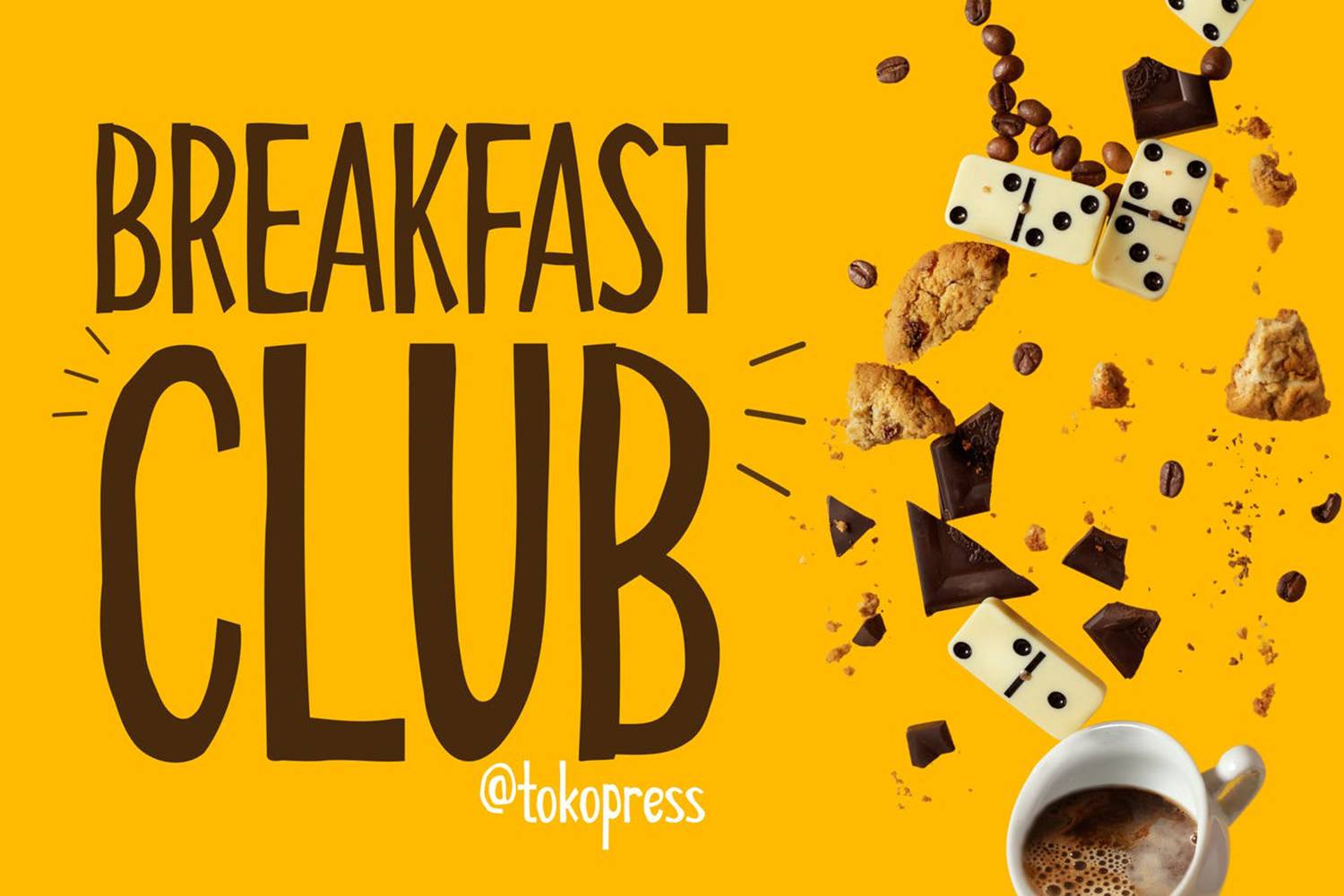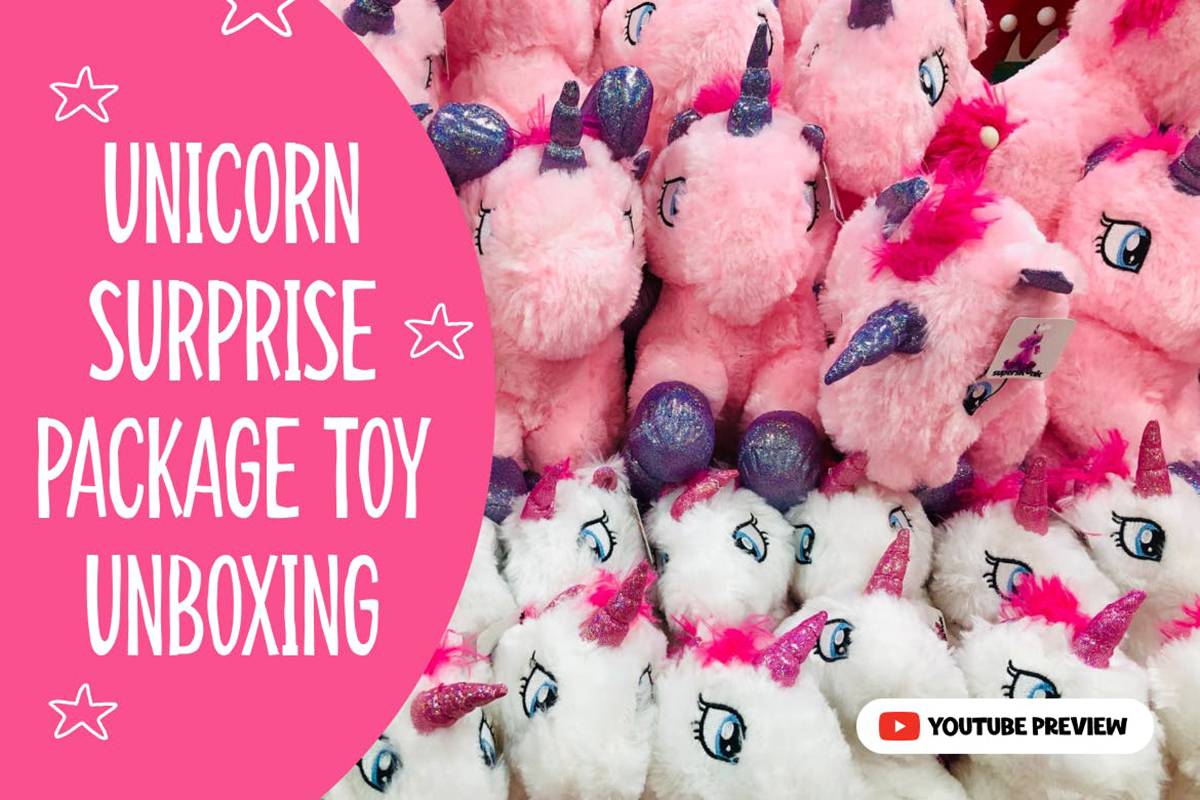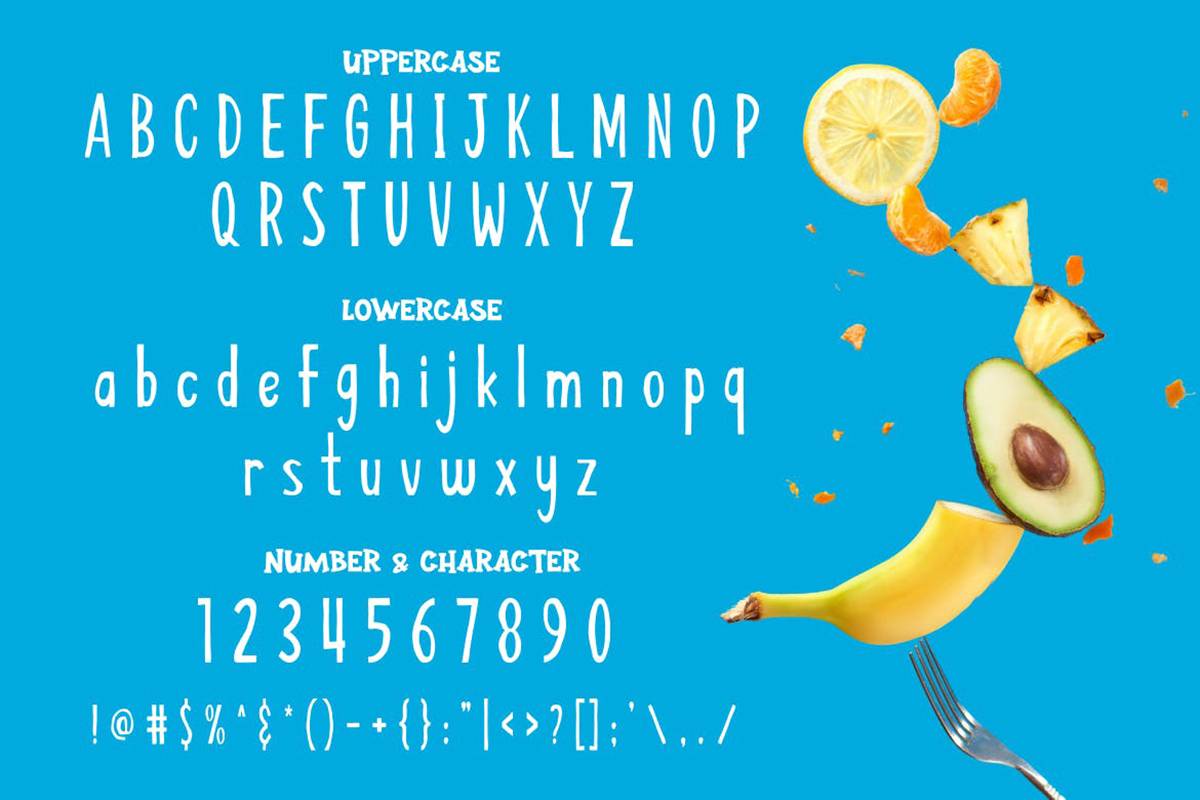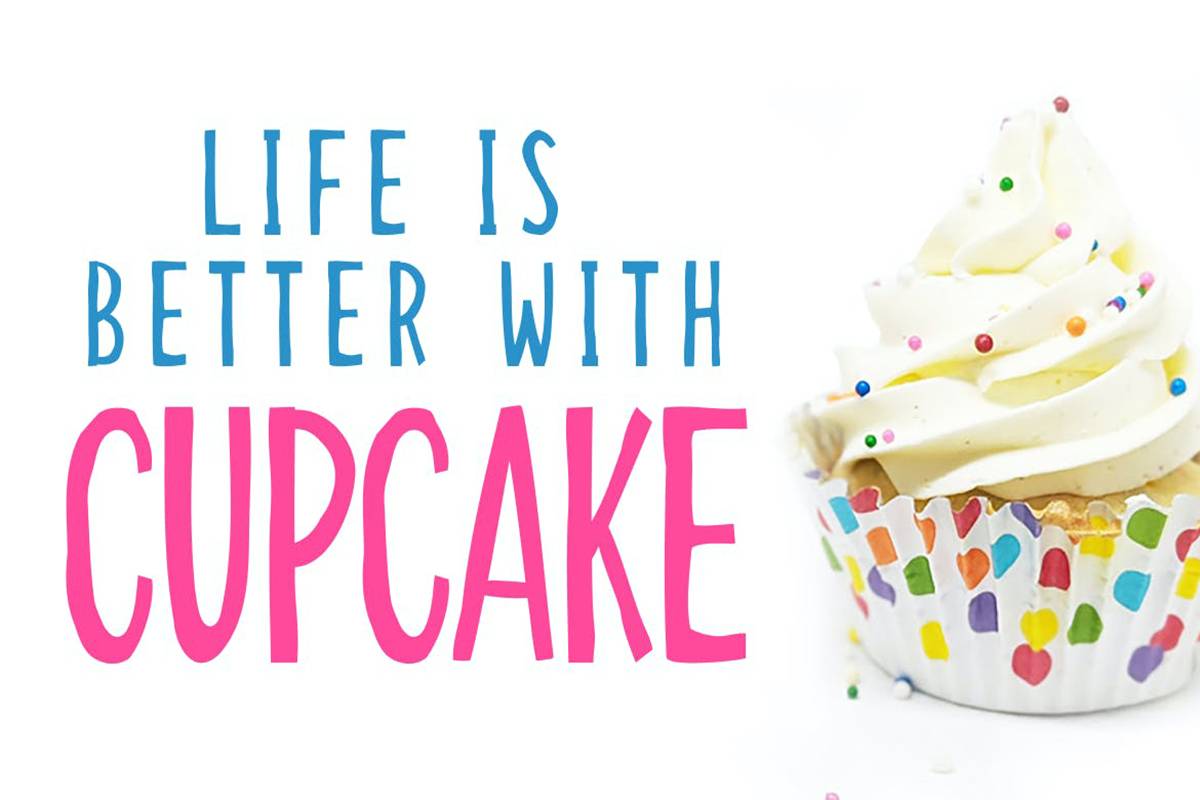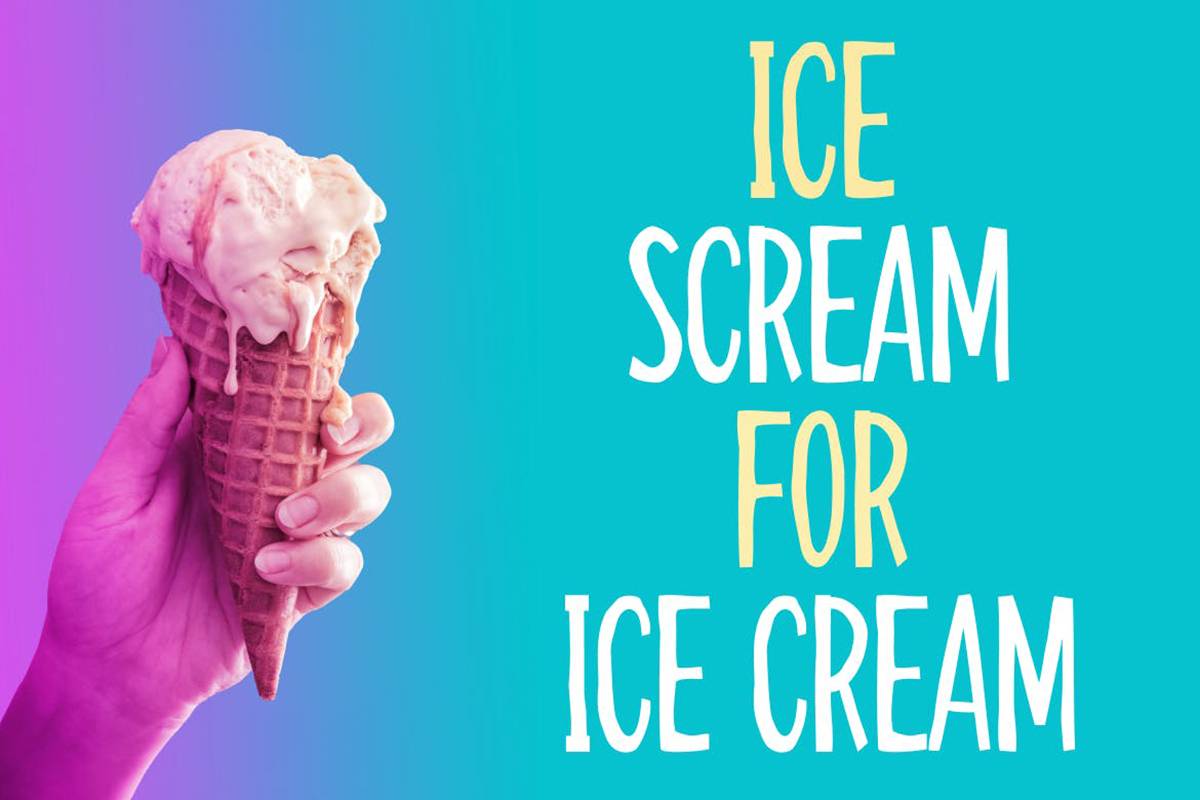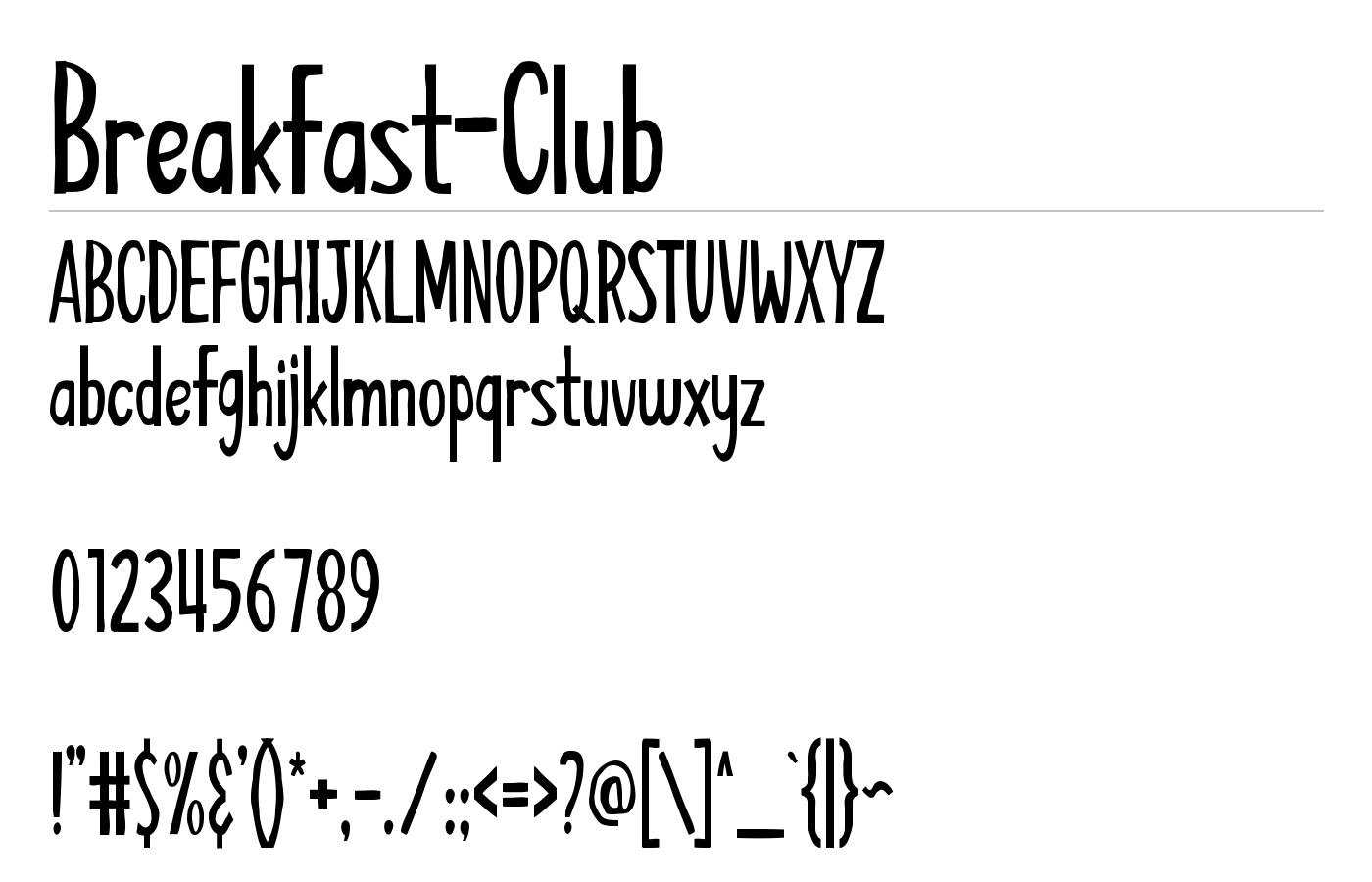
Breakfast Club is a tall, narrow sans serif font with a playful and informal vibe. Its thin strokes and slightly irregular shapes give it a hand-drawn feel, making it perfect for creative projects that need a friendly and approachable look. This font works well in headlines, posters, and branding that aim to convey a casual, quirky personality.
Breakfast Club Font
About Breakfast Club Font
| Font family | Breakfast Club Font |
| Designer | Tokopress Team |